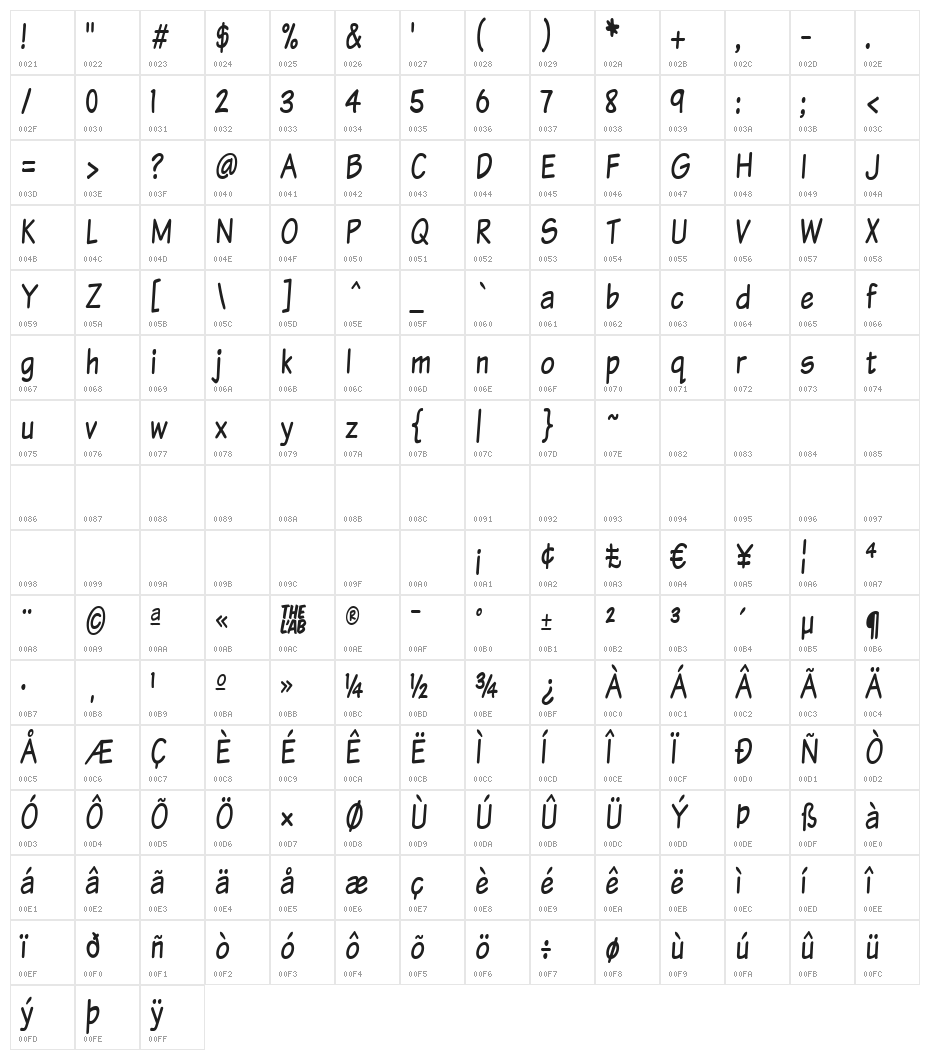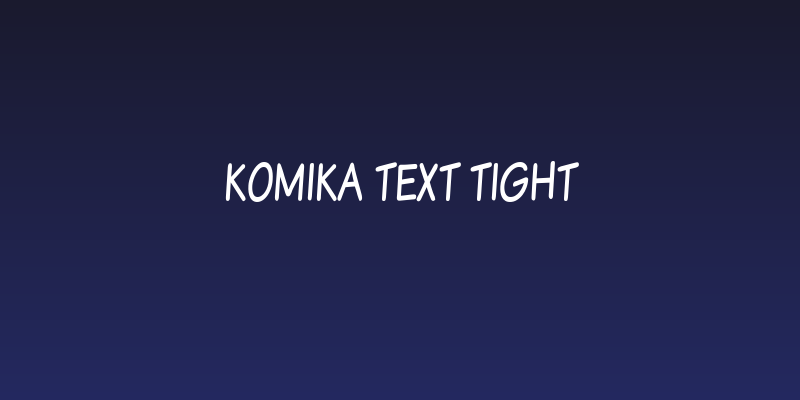
Komika Text Tight Font
Komika Text Tight Description
This playful and bold font features a handwritten style with rounded edges and a casual appearance. The characters are slightly condensed, giving it a compact look that maintains readability. It has a friendly and approachable feel, making it suitable for informal and creative projects. The uppercase and lowercase letters are well-balanced, and the numerals are clear and distinct. Special characters are included, adding versatility to its use. The overall design is consistent, with a medium contrast in stroke thickness, which enhances its legibility.
| Proposed Projects | Ideal for comic books, children's books, informal branding, playful posters, and social media graphics. |